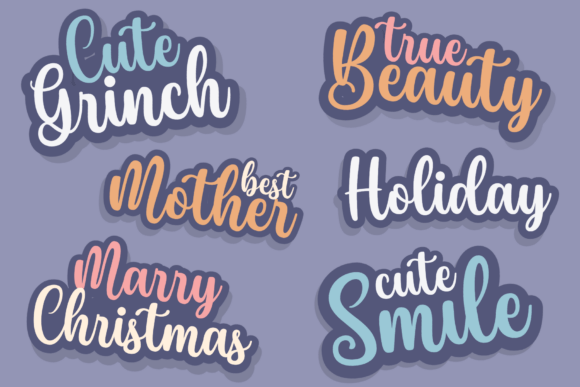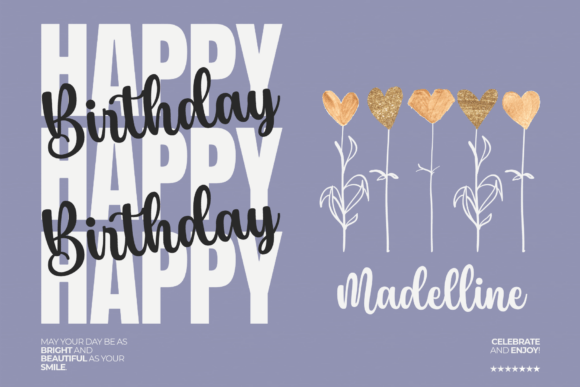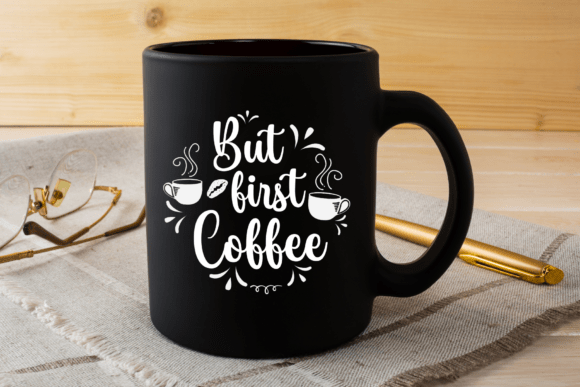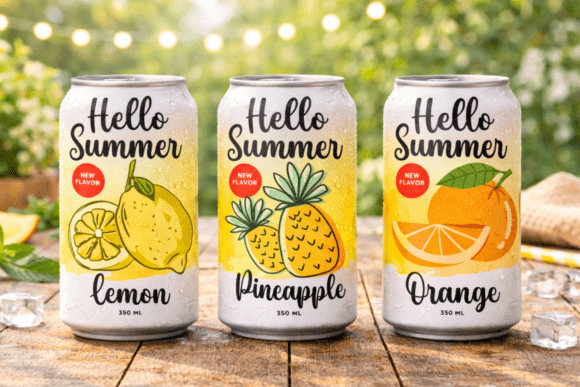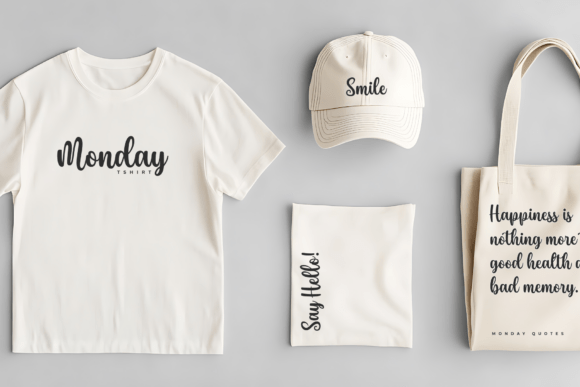
Discover the Magic of Grinch Font: Elevate Your Designs with Whimsy and Charm
Have you ever been in the middle of a design project, and suddenly, it feels like something’s missing? You’re not quite sure what it is, but the design just doesn’t have that special spark. I recall a similar experience while working on a festive holiday invitation for a client. I had the colors, the graphics, and the layout just right, but the font I was using felt flat and uninspiring. That’s when I stumbled upon the Grinch font, and it completely transformed my design.
The Grinch font is a charmingly whimsical and “cute” handwritten script that can bring a touch of personality to every design. Its fluid strokes and playful loops capture the essence of handmade artistry, making it an essential tool for designers looking to add a friendly, approachable vibe to their work.
- ✅ The Grinch font is incredibly versatile and can be used for a wide range of projects, from festive holiday invitations to branded social media graphics.
- ✅ Its organic flow makes it incredibly easy to read while maintaining a distinct “human” touch that standard digital fonts often lack.
- ✅ The font’s fluid strokes and playful loops give it a unique, handcrafted feel that’s perfect for designs that require a personal touch.
- ✅ It’s perfect for children’s book titles, nursery wall art, or boutique logo designs.
A Few Quirks to Keep in Mind 🤔
- ⚠️ The Grinch font can be a bit overused, so be mindful of how often you use it in a single design.
- ⚠️ Some of the characters may require manual kerning to achieve the perfect spacing.
- ⚠️ As with any script font, it may not be suitable for very small font sizes or body text.
The Story Behind Grinch Font: Designer Inspiration
The Grinch font was inspired by the classic children’s book character, the Grinch. The font’s designer wanted to capture the essence of the Grinch’s grumpy yet lovable personality in a font that would bring joy and whimsy to designs. The result is a charmingly whimsical and “cute” handwritten script that’s perfect for adding a touch of personality to any design.
| Font Name | Grinch Font |
| Author | jinanstd |
Q: What type of projects is Grinch font best suited for?
A: Grinch font is perfect for designs that require a friendly, approachable vibe, such as festive holiday invitations, branded social media graphics, children’s book titles, and nursery wall art.
Q: Is Grinch font easy to read?
A: Yes, Grinch font is designed to be easy to read, with an organic flow that maintains a distinct “human” touch.
Q: Can I use Grinch font in combination with other fonts?
A: Absolutely! Grinch font pairs well with clean, minimalist sans-serifs. Experiment with different font combinations to find the perfect balance for your design.